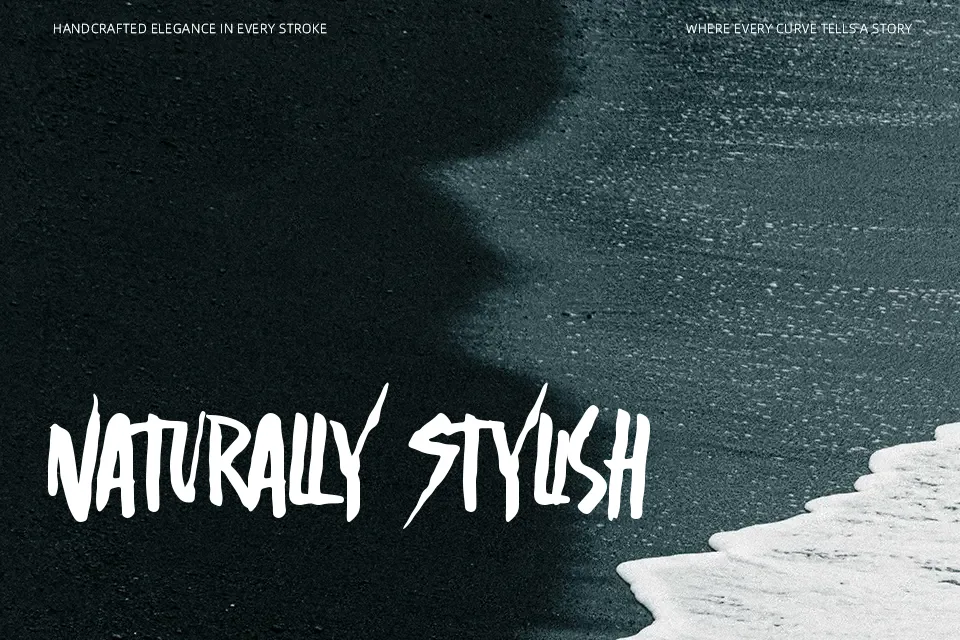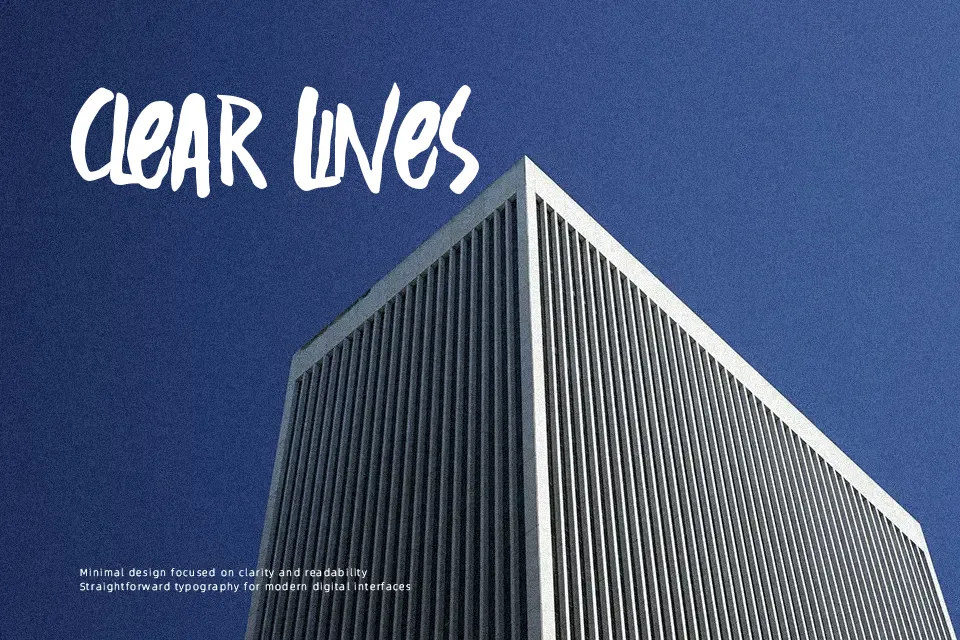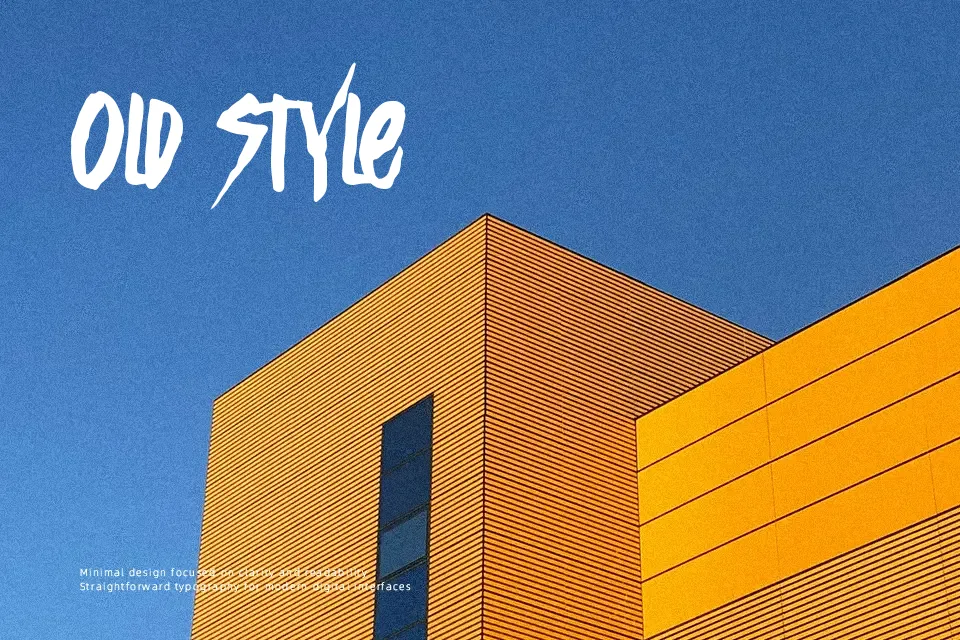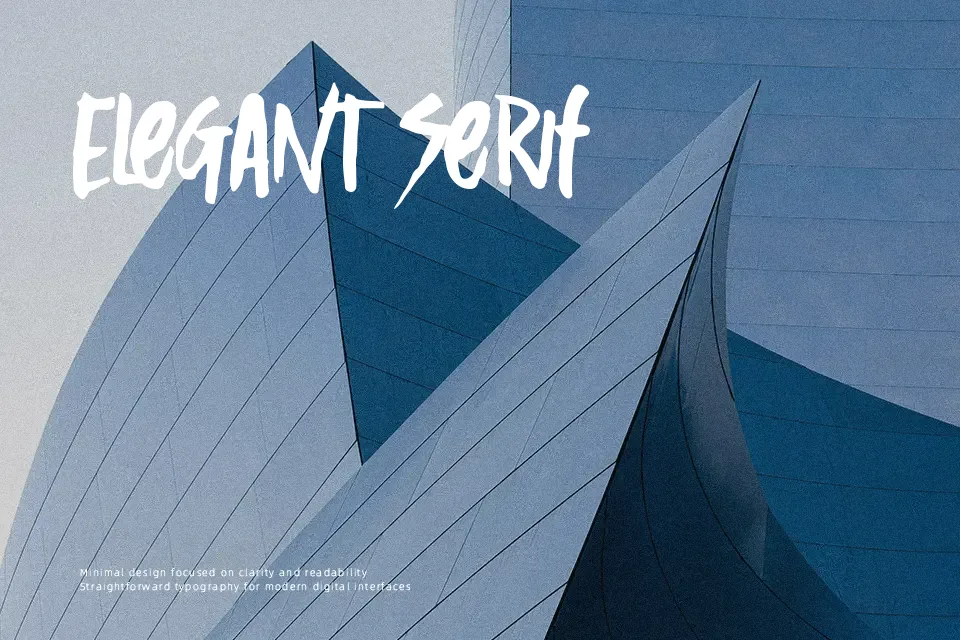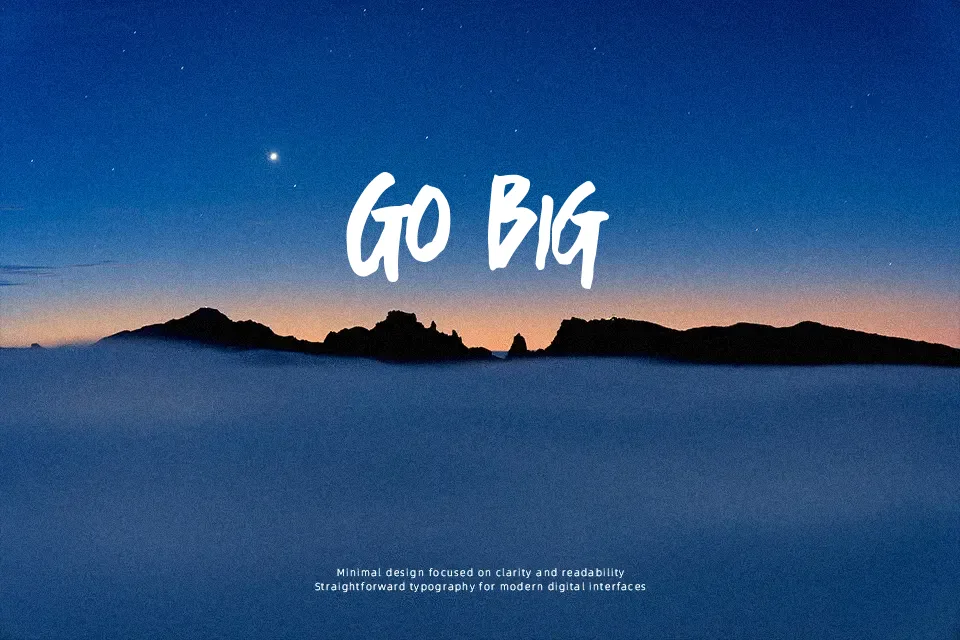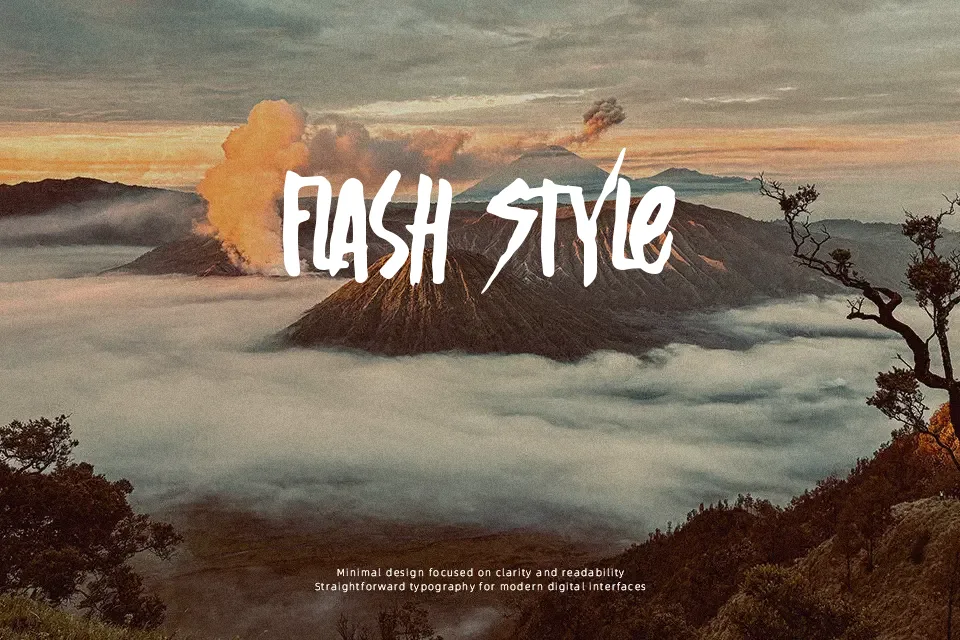
Silent Forest Font
Defined by ragged brush textures and jagged edge contours, Silent Forest Font delivers an intense, eerie display presence across graphic layouts. The uppercase glyphs display uneven baseline alignments and aggressive stroke terminals, creating an authentic hand-painted texture with substantial visual weight. Moderate character spacing prevents adjacent letterforms from colliding, while distinct stroke variations maintain legibility in short headline arrangements. However, the chaotic stroke edges and dense silhouette compromise readability in body copy or smaller interface labels. The typeface functions effectively for suspenseful book jackets, haunted attraction signage, and atmospheric video game branding where visceral, unsettling typography is essential.
Best For: horror film titles, Halloween apparel graphics, suspense game branding, spooky event posters
Not Ideal For: continuous body text, mobile interface elements, formal corporate stationery, spreadsheet documents
Perfect for film, halloween, and headline, with a dark and brush style.